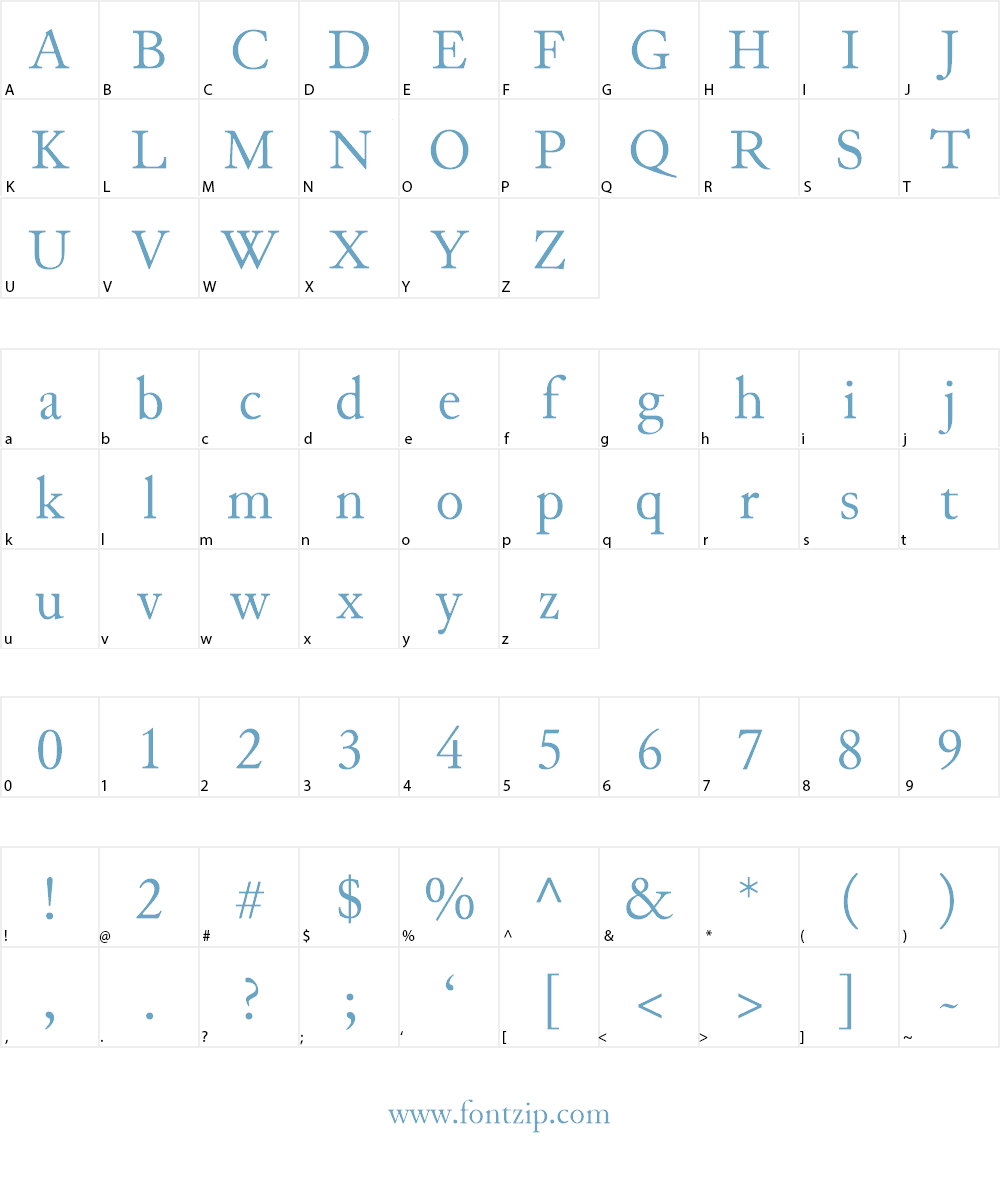
The Junicode Greek Project aims to add the full Greek character set to the Junicode Font. The objectives:
The characters will be "old style," but usable in a modern context.
The Greek characters will harmonize with Junicode's Latin characters in size and weight.
The font will be usable for classical and biblical Greek: thus the Greek Extended (polytonic) characters will be included.
The ligatures used in older Greek printing will be included, and made available as an OpenType feature.
The model for the Greek character ranges is a Greek Double Pica designed by Alexander Wilson (1714-86) and used by the Foulis publishing house in Glasgow, a distinguished publisher of classical and other texts, for its renowned edition of Homer (1756-8).